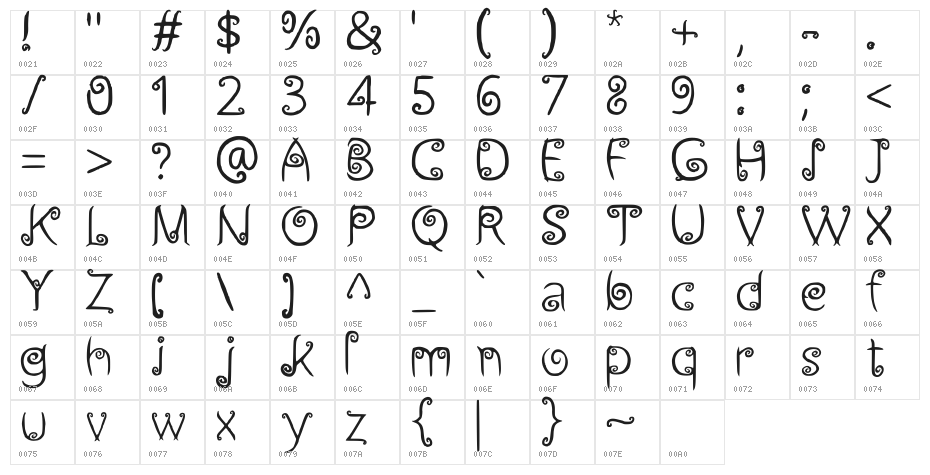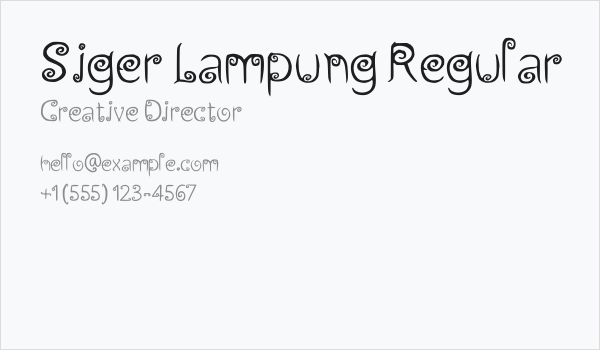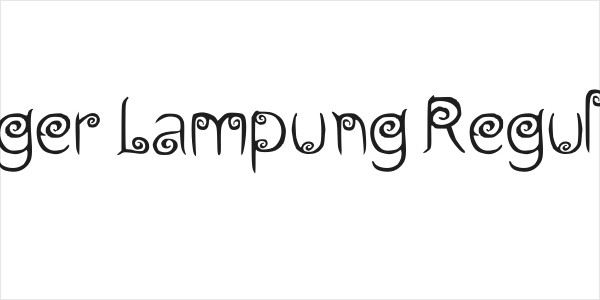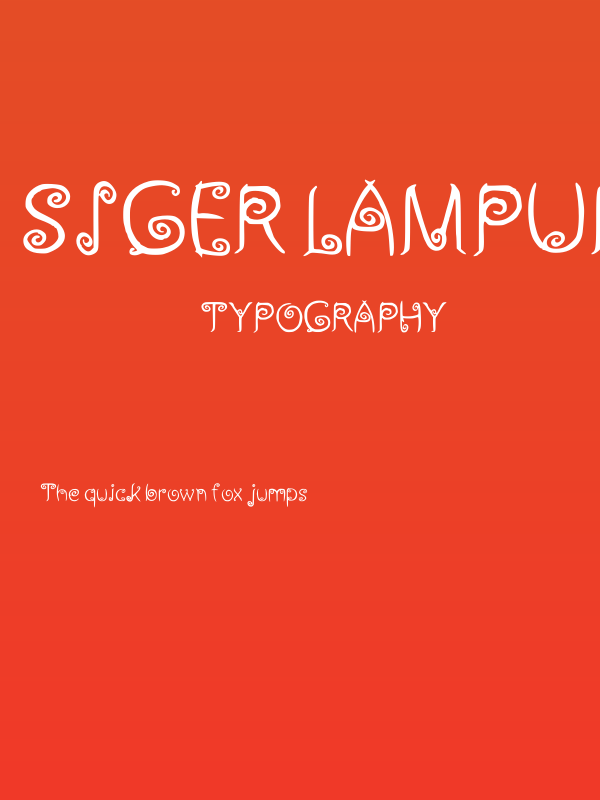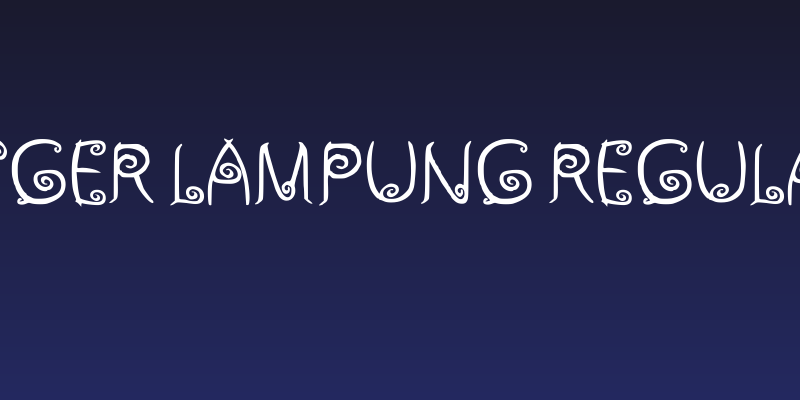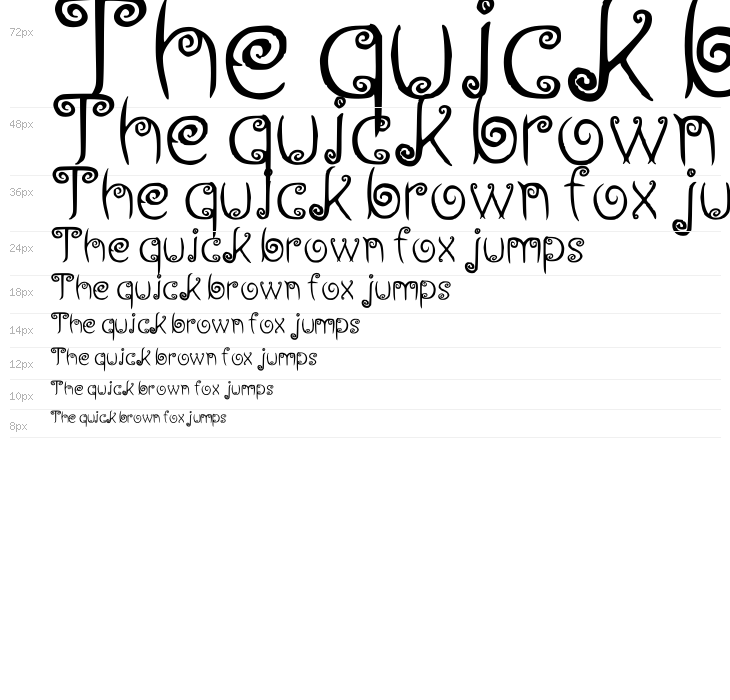
Siger Lampung Regular Font
Siger Lampung Regular Description
This font features a whimsical and decorative style with unique spiral and curl elements incorporated into each character. The uppercase and lowercase letters maintain a consistent playful theme, with rounded edges and artistic flourishes that give the font a lively and dynamic appearance. The numerals and special characters follow the same design principles, ensuring a cohesive look across all glyphs. This font's distinct style makes it suitable for creative and artistic projects where a touch of fun and elegance is desired.
| Proposed Projects | Ideal for greeting cards, children's books, playful branding, and artistic posters. |